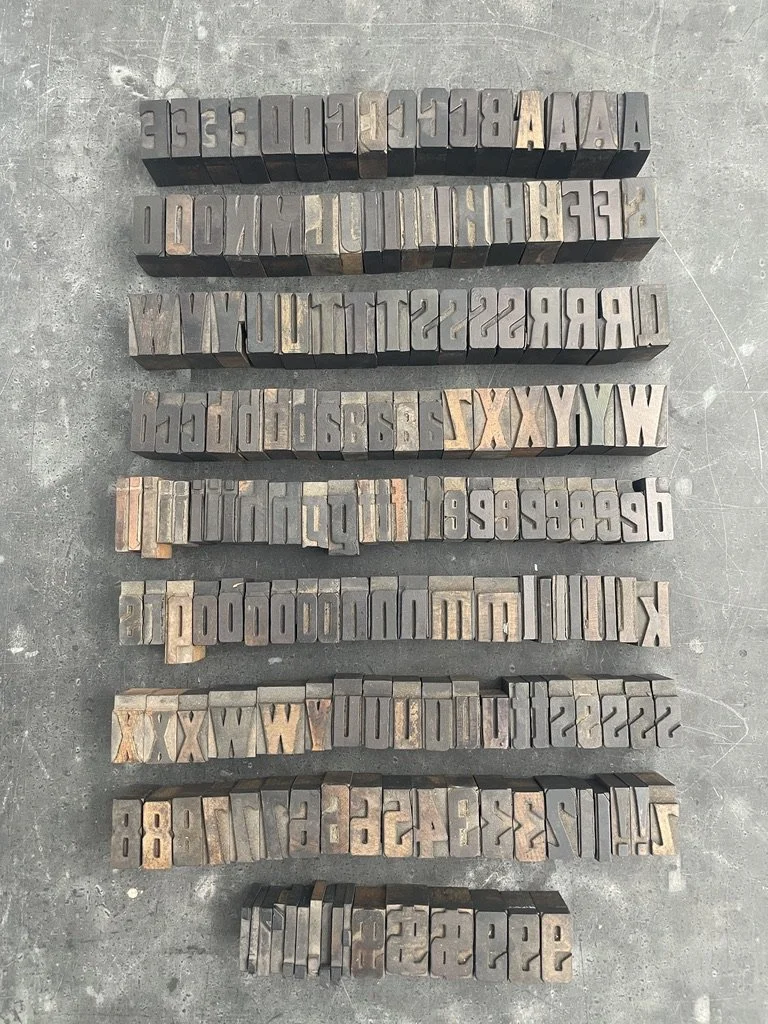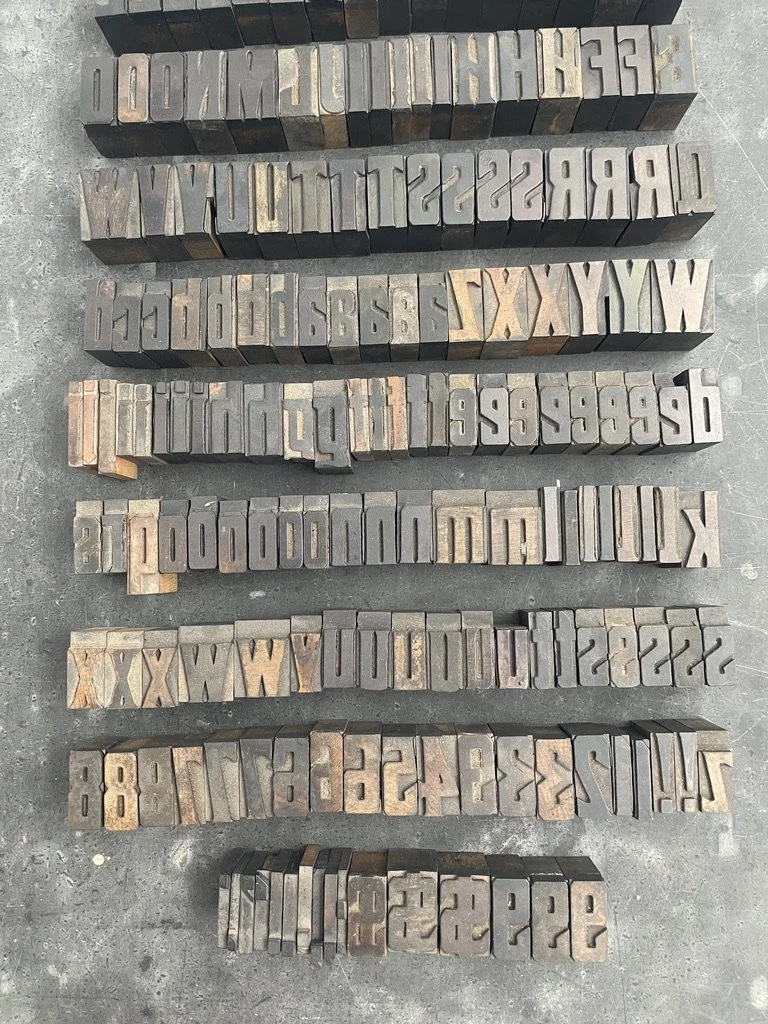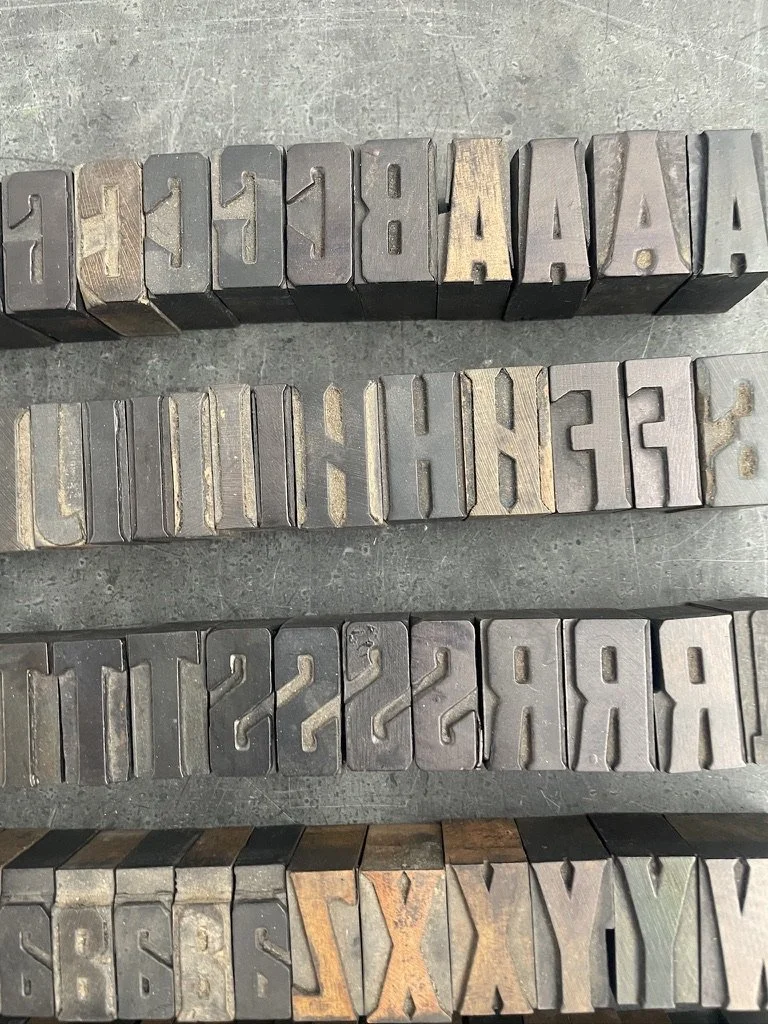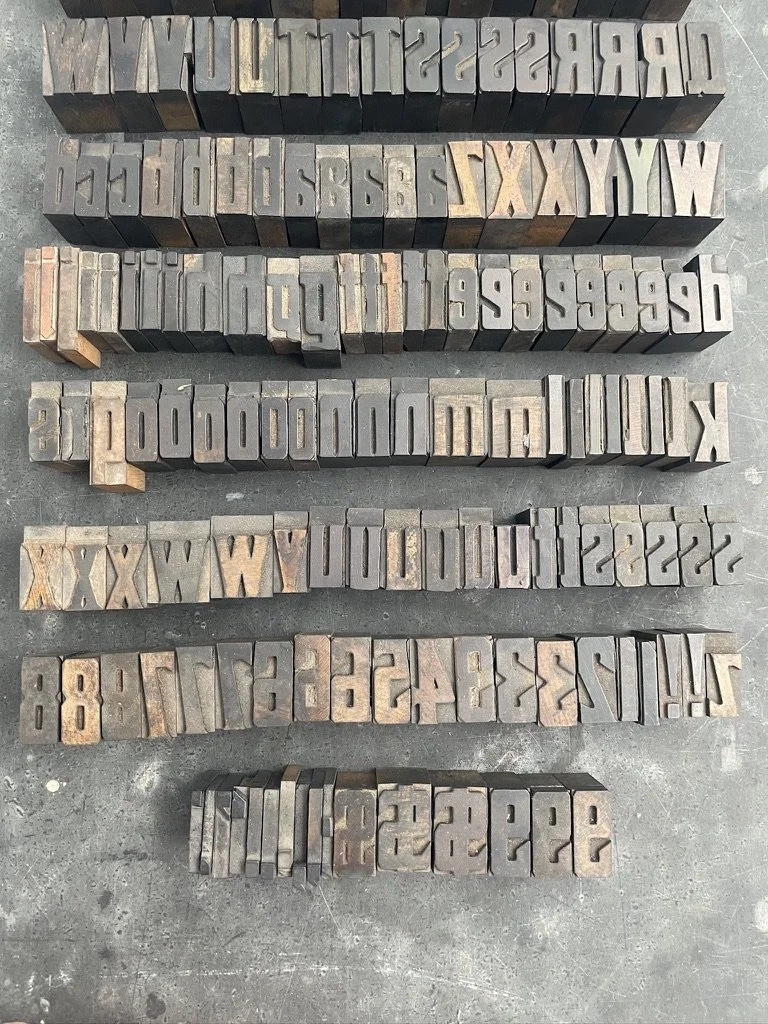
6 Line Die Stamped William Page Wood Type Font (W25)
A beautiful font of type from the late 1800s produced by the patented die stamped process innovated by William Page. Includes all shown.